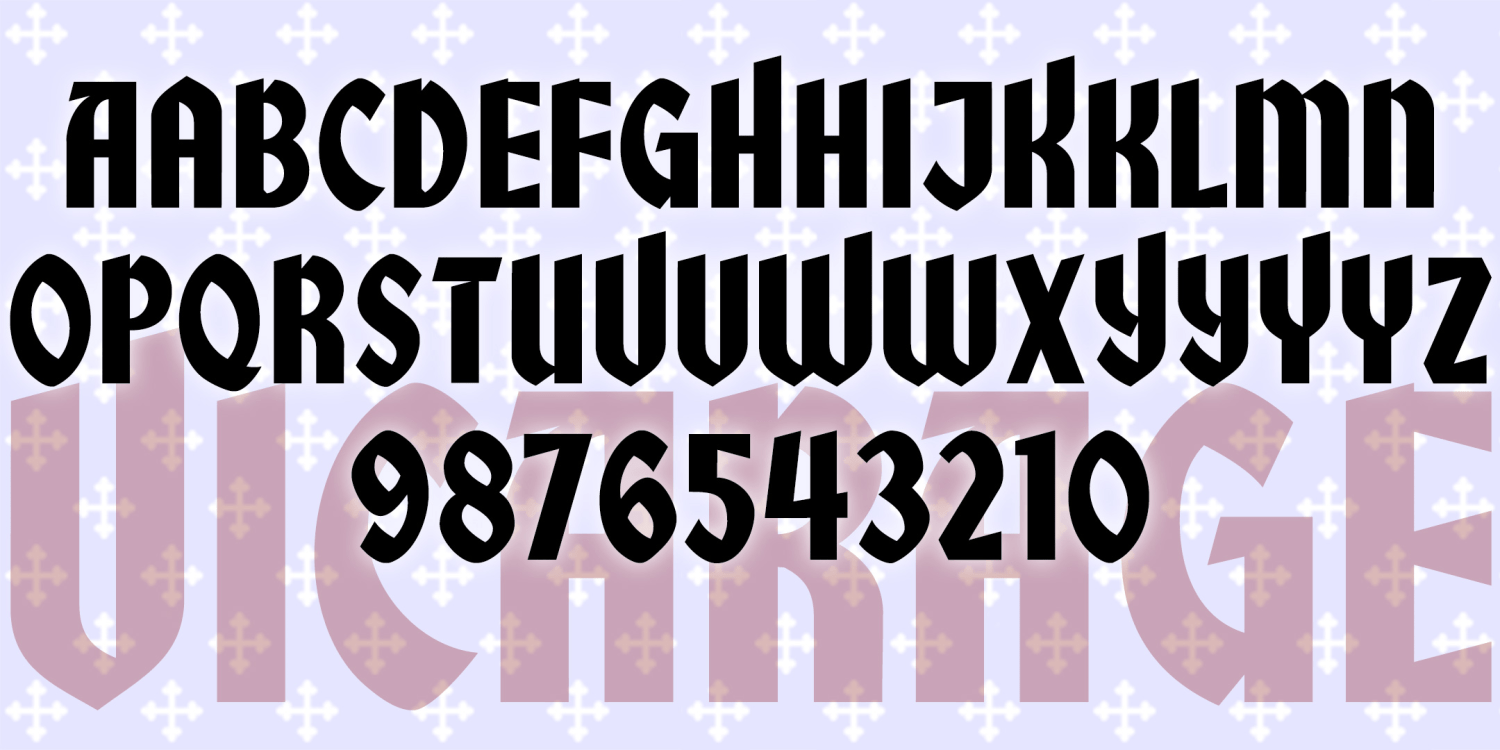
Vicarage
VICARAGE, PARSONAGE and RECTORY are decorative fonts, each with a romantic, historical feel and inspired by old film titles. Each could also be used to suggest Olde Worlde gentility, holiday festivity, or spirituality. Each font is all caps with many alternate forms for more variety. Vicarage, the boldest of the three, was inspired by the trailer of the film "The Private Lives of Elizabeth and Essex" (1939). Rectory, suggestive of pen calligraphy, was inspired by the opening credits of "Going My Way" (1944). Parsonage, the curviest, was inspired by the trailer for the film "Royal Wedding" (1951, also the inspiration for my Royal Wedding Monograms).